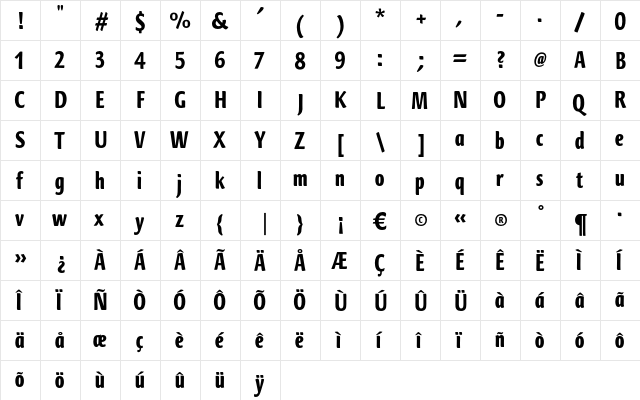
CarrefourUltraCond Bold Font Preview
Design Context for CarrefourUltraCond Typeface
CarrefourUltraCond takes a measured approach to typography — its balanced proportions and neutral character make it a reliable workhorse for both digital and print work. The heavy weight commands attention and anchors typographic hierarchies. Its narrow stance lets it pack a punch even in space-constrained designs.